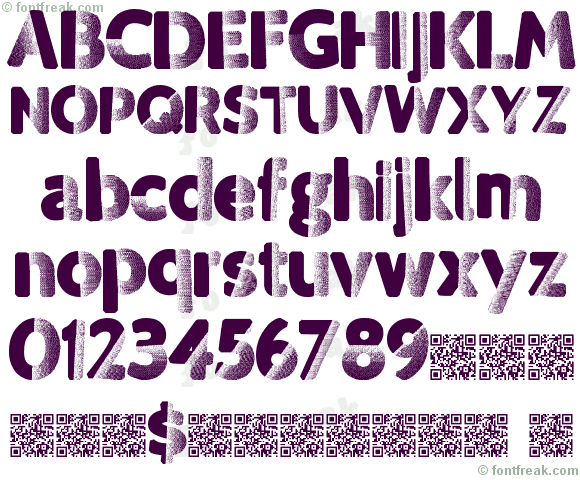
TropicDisco
TropicDisco is a unique display font created by XEROGRAPHER FONTS, released in 2013. With its playful and vibrant design, this font captures the essence of tropical themes while adding a modern twist. The TropicDisco font showcases a distinctive combination of rounded and bold letterforms, characterized by varying stroke weights that create a sense of movement and energy. The contrast between thick and thin lines adds a lively dynamic, making it an eye-catching choice for various design projects.
This font is particularly well-suited for a range of creative applications. Graphic designers can utilize TropicDisco in wedding invitations, where its cheerful appearance can evoke a festive atmosphere. Additionally, it serves as an excellent choice for movie posters, especially for films with a lighthearted or adventurous theme. Restaurant menus can benefit from its vibrant style, making dishes feel more enticing and fun. Furthermore, small business owners aiming to attract a younger audience will find TropicDisco an appealing option for branding materials and promotional content.
The target audience for TropicDisco includes graphic designers, small business owners, and content creators seeking a font that infuses their projects with personality and flair. The free availability of this font encourages creativity, allowing users to experiment without constraints.
What sets TropicDisco apart is its ability to blend a carefree aesthetic with modern design principles. The font's playful character, combined with its versatility, makes it a standout choice for anyone looking to make a bold statement. For those interested in incorporating this lively typeface into their work, the TropicDisco font free download is an opportunity not to be missed. Embrace the spirit of the tropics with TropicDisco and elevate your design projects to new heights.